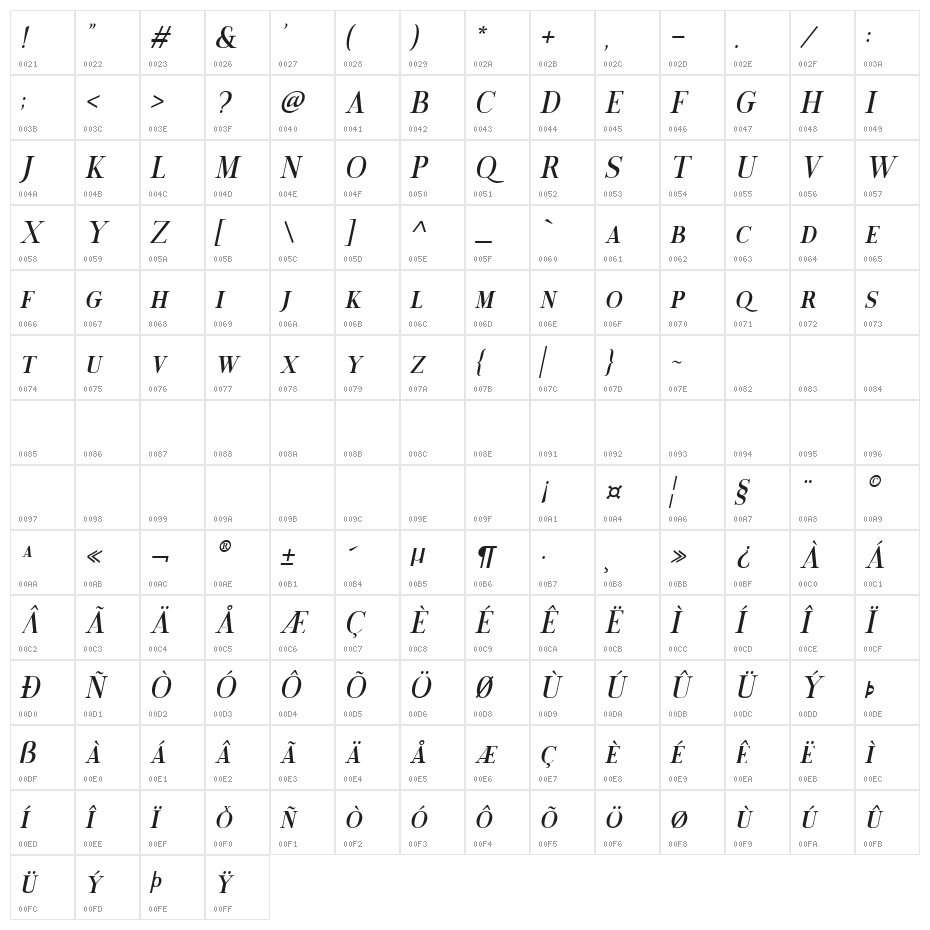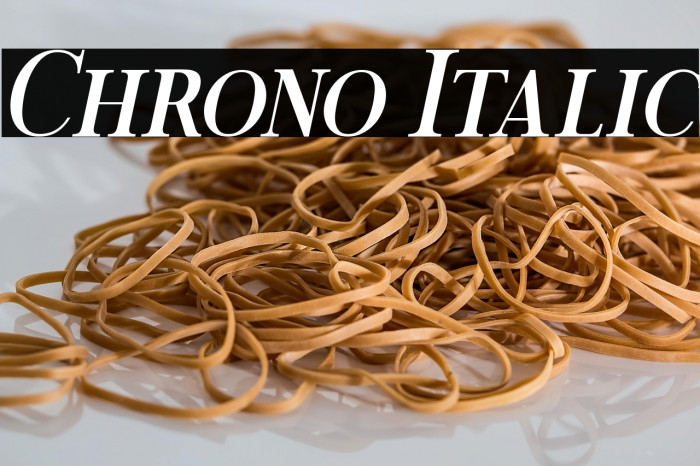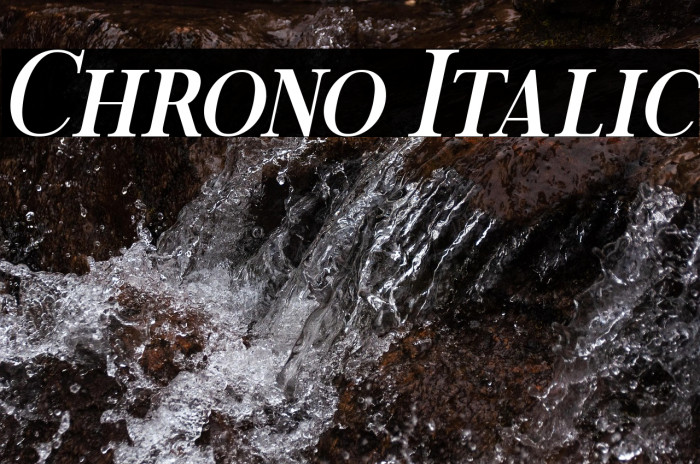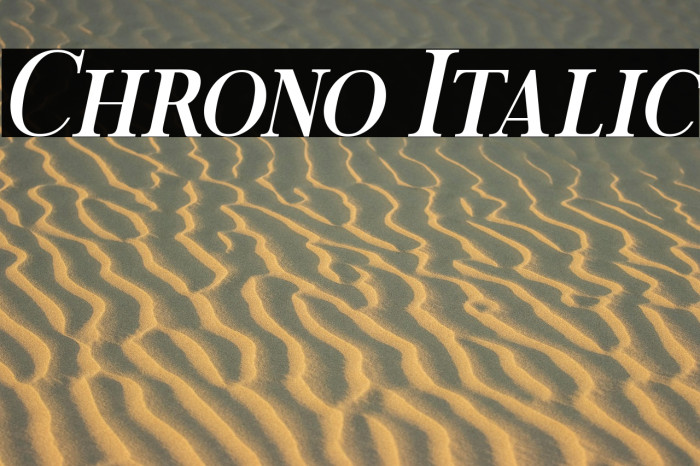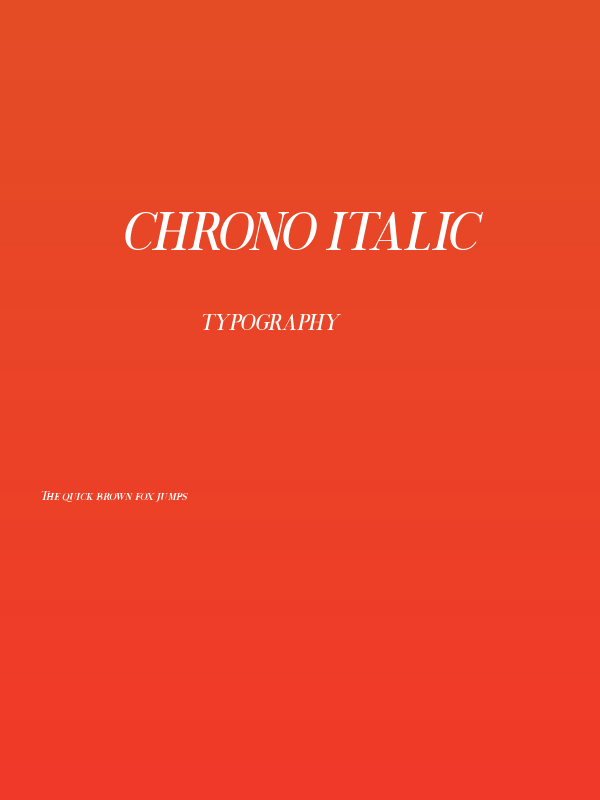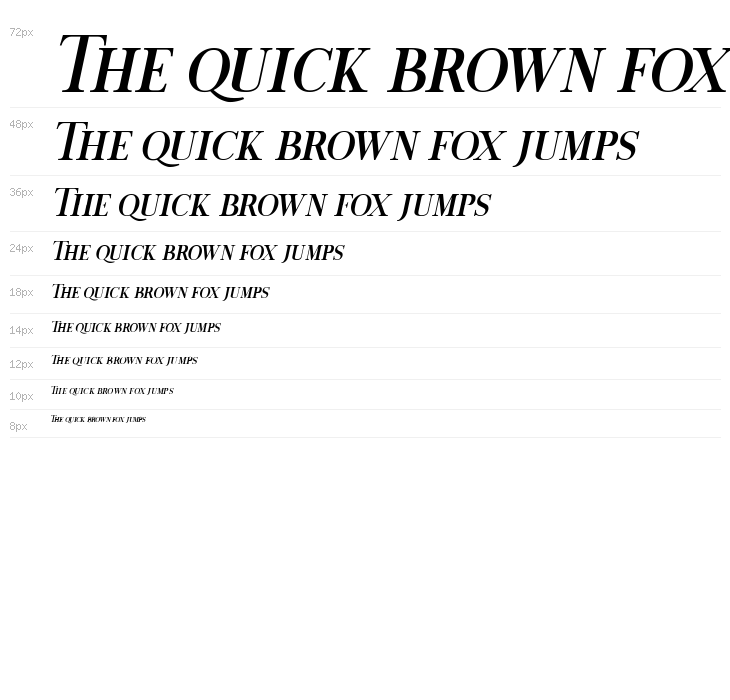
Chrono Italic Font
Chrono Italic Description
This font features a classic italic style with elegant, flowing lines that give it a sophisticated and timeless appearance. The characters are slightly slanted, enhancing the dynamic and fluid nature of the typeface. The serifs are pronounced, adding a touch of formality and tradition. The overall design is balanced, with moderate contrast between thick and thin strokes, making it highly readable while maintaining an artistic flair. The spacing between characters is normal, ensuring clarity and legibility across various text sizes. This font is versatile, suitable for both digital and print media.